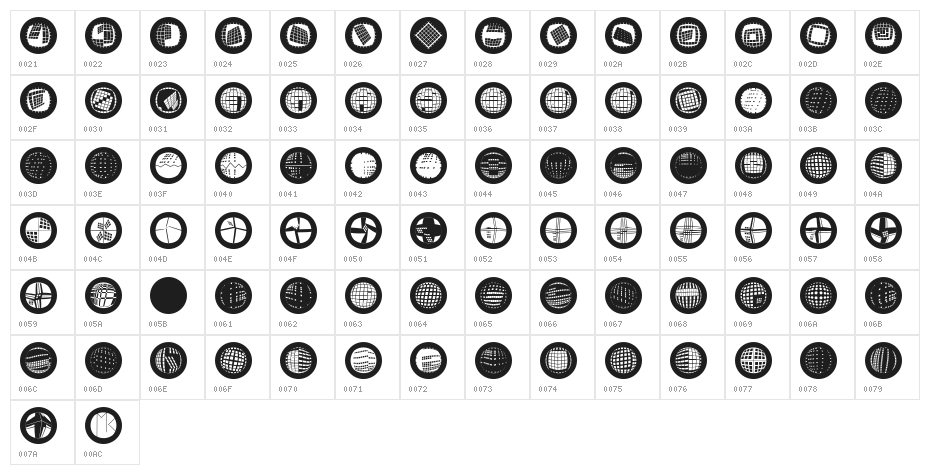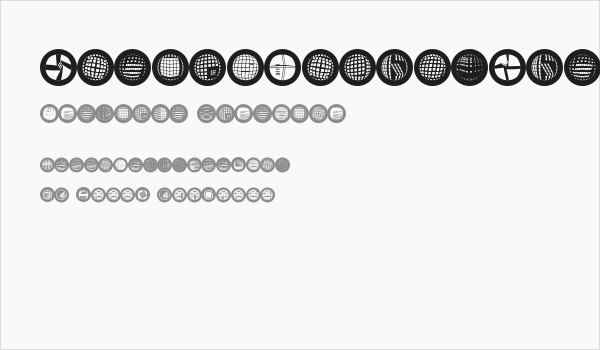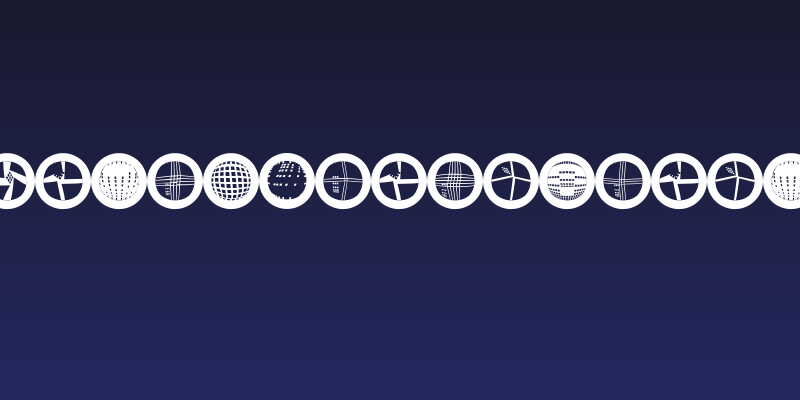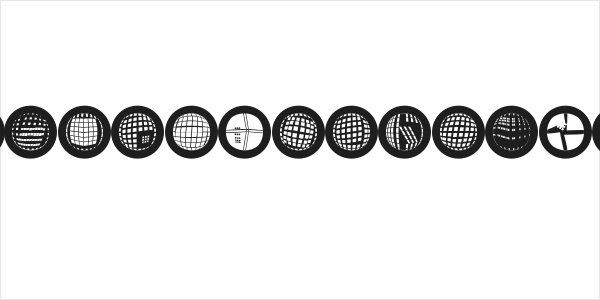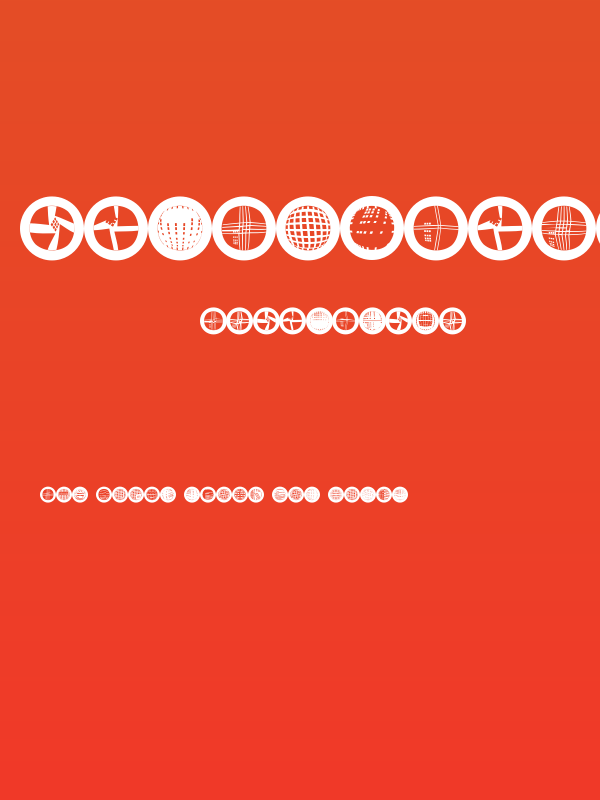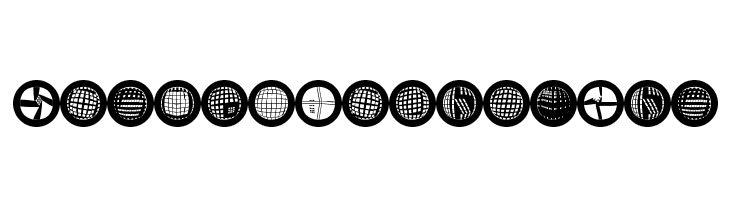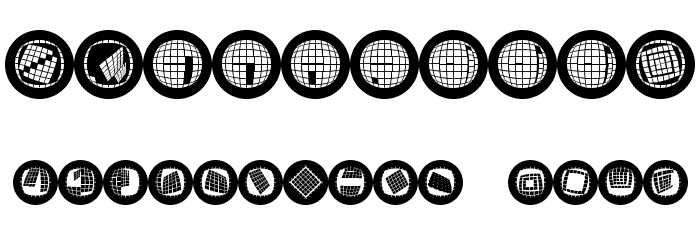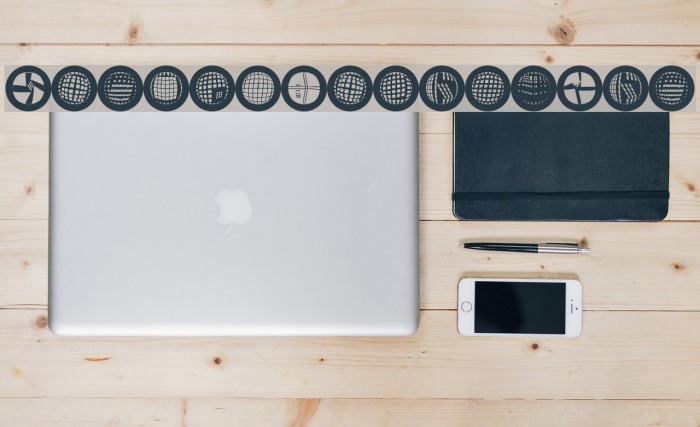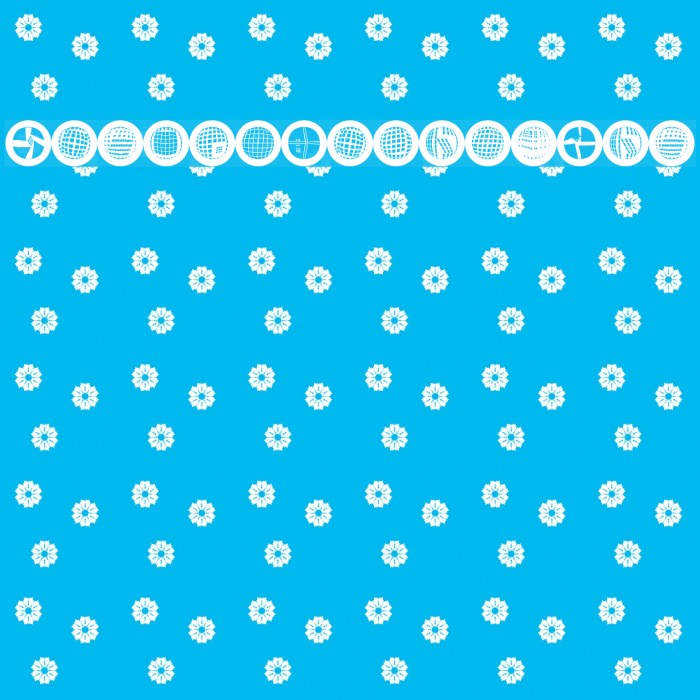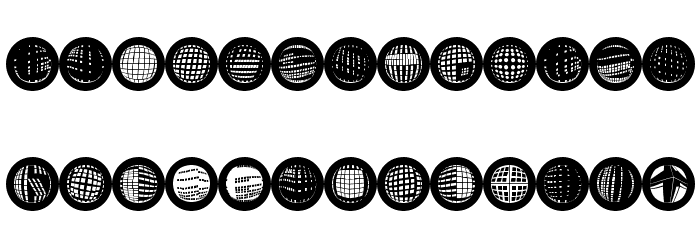
This font features a unique and artistic design where each character is enclosed within a circular frame. The characters themselves are composed of intricate geometric patterns, creating a visually striking and abstract appearance. The use of lines and grids within the circles gives the font a modern and experimental feel, making it stand out as a decorative element. The overall look is bold and graphic, with a strong emphasis on visual impact rather than readability. This font is ideal for creative projects that require a distinctive and avant-garde aesthetic.
| Use Case | Logos, Posters, Artistic Projects |
| Proposed Projects | Perfect for album covers, posters, modern art installations, and any project seeking a bold, artistic touch. |